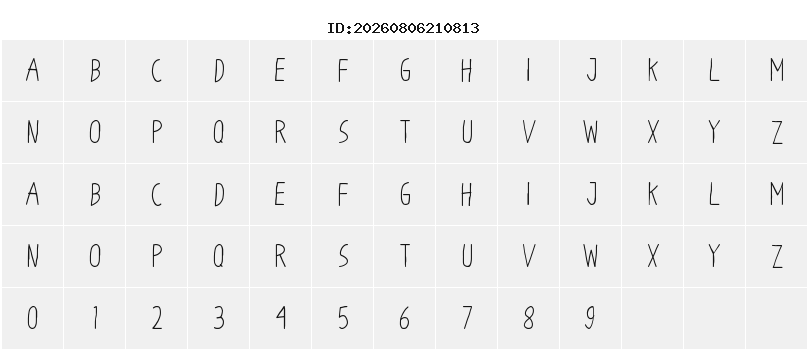
Odum Odum Preview
About Odum Odum.ttf
Odum Odum.ttf is a modern, elegant sans-serif font designed for ultimate readability and visual harmony. Perfect for branding, headlines, web design, and print materials.